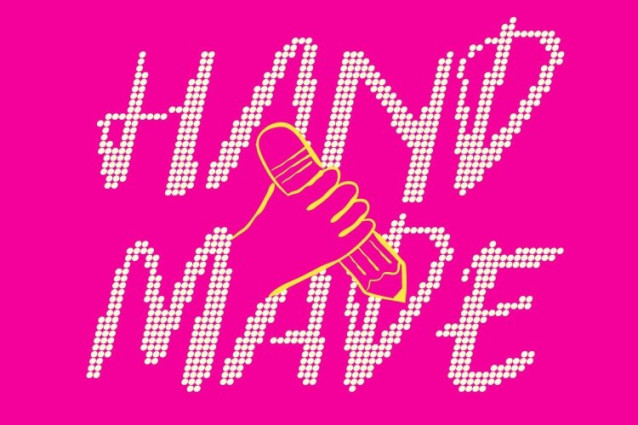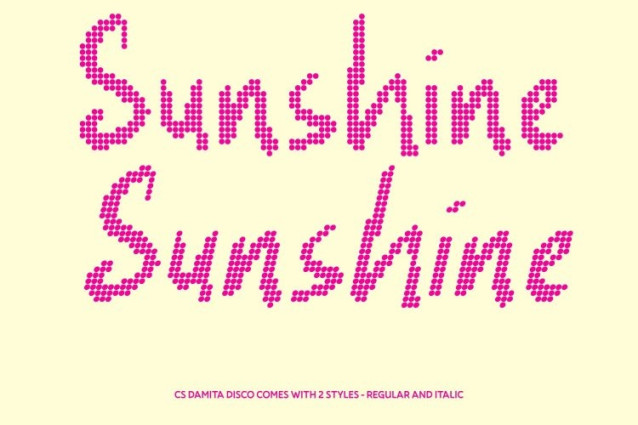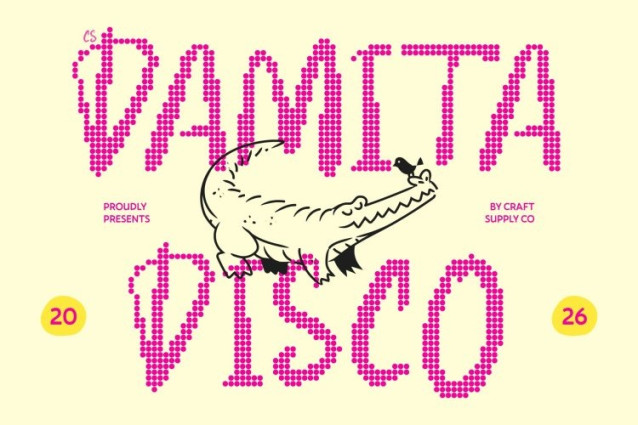
CS Damita Disco Font
CS Damita Disco Font – This is a handwritten display font that captures the soft beauty of natural pen strokes, now enhanced with a playful disco-inspired dotted style. Its gentle curves and organic movement create a warm handwritten feel, while the sparkling dot details add rhythm and visual excitement. Each letter feels personal and expressive, glowing with a cheerful character that makes designs feel lively and engaging.
Soft Curves for a Friendly, Playful Look
The smooth curves and relaxed strokes maintain the approachable charm of genuine handwriting. With the addition of the disco-style dotted texture, the font gains a lively decorative effect that adds personality without losing readability. This balance creates a friendly, heartfelt appearance that feels both warm and visually distinctive.
Expressive Flow with Festive Energy
The natural rhythm of this font gives text a dynamic and expressive flow, perfect for bringing emotion and creativity into your designs. The dotted disco accents enhance its playful spirit, turning each phrase into a vibrant visual element that feels joyful and full of movement.
Perfect for Creative and Personal Projects
Ideal for personal branding, quotes, casual invitations, greeting cards, social media graphics, and expressive design layouts, this font adds warmth and charm wherever it appears. Its combination of soft handwriting and sparkling disco texture makes it perfect for projects that want to feel authentic, cheerful, and memorable.